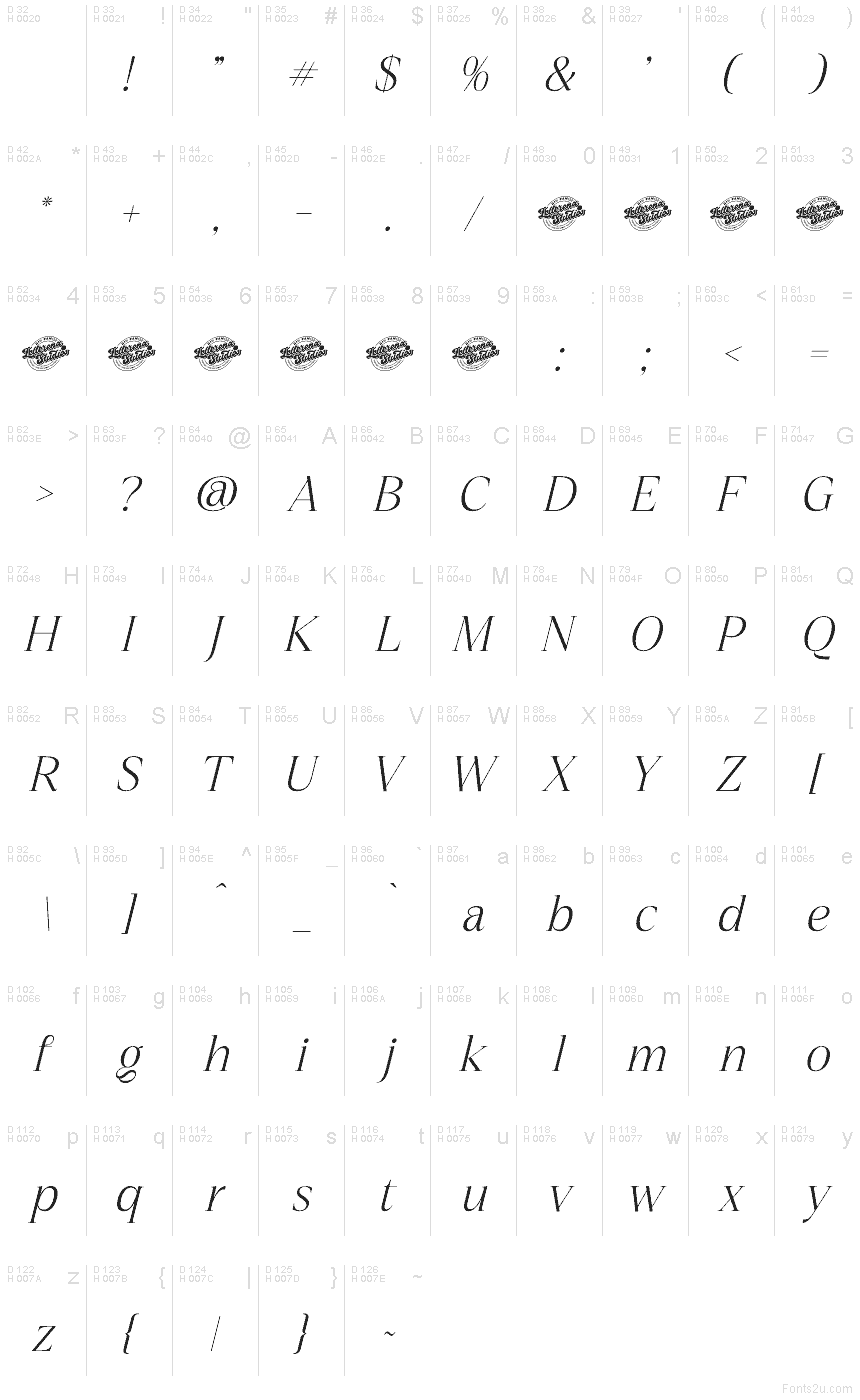
Nagista DEMO VERSION Italic
Nagista Italic font by Letterena Studios is an elegant and sophisticated serif font. Combining a modern twist with classical design, it flaunts flowing curves and a refined aesthetic. The contrast between its strokes adds subtlety and grace to each line, establishing its gentle yet impactful impression within the light weight it bears.
This free serif font is perfect for crafting designs that require elegance, such as wedding invitations, upscale branding projects, luxury magazine titles, fashion lookbooks, product packaging for cosmetics or jewelry, restaurant menus for fine dining establishments, book covers for classic literature reprints, high-end business cards or letterheads.